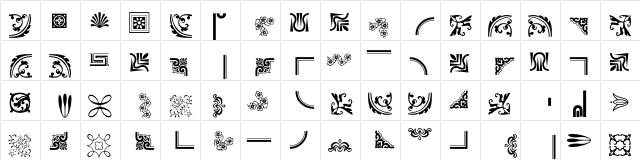
BordersOrnament 5 Regular
BordersOrnament 5 brings ornamental detail and strong personality to headlines and identities, where visual impact matters more than quiet functionality.
Font Pairing: Pair with a clean neutral sans-serif for body copy to let BordersOrnament 5's character lead without overwhelming the composition.
Pro Tip: Treat BordersOrnament 5 as the centrepiece of your typographic hierarchy. One strong heading set in a decorative face can carry an entire layout.